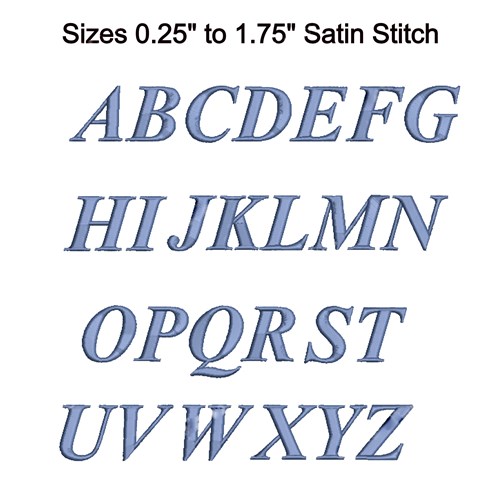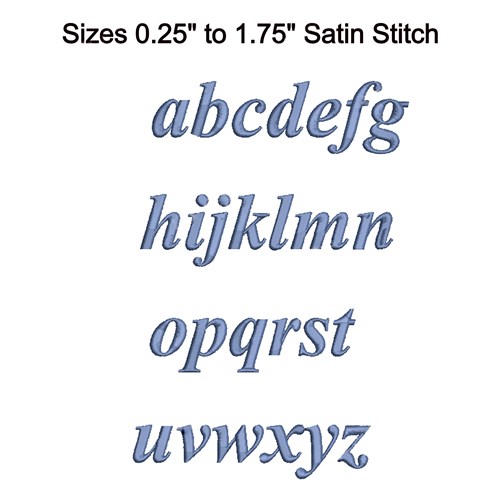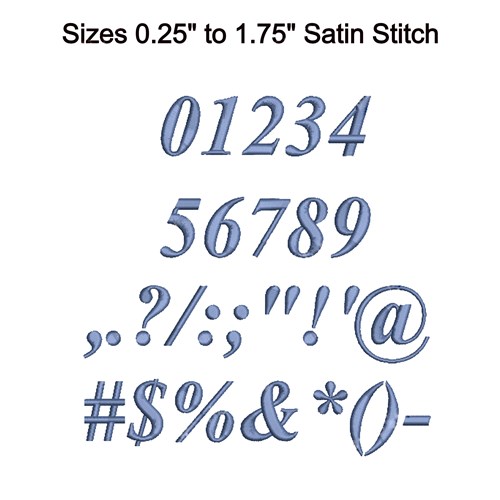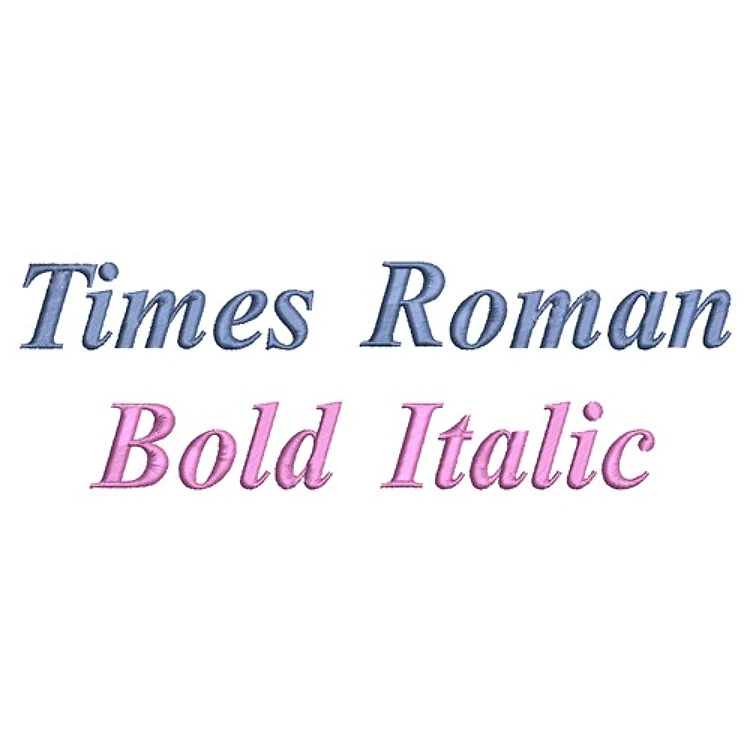
Maya Kreations is happy to present Times Roman Bold Italic Embroidery Font - Classic Block Lettering - Home Format - PES, DST & 6 formats machine embroidery font which has Classic block embroidery font showcasing 'Times Roman' in bold italic, perfect for stitching on blankets or canvas bags. Available in PES, DST & 6 other formats. included. If you would like to view more embroidery fonts and alphabets please search our embroidery fonts page.